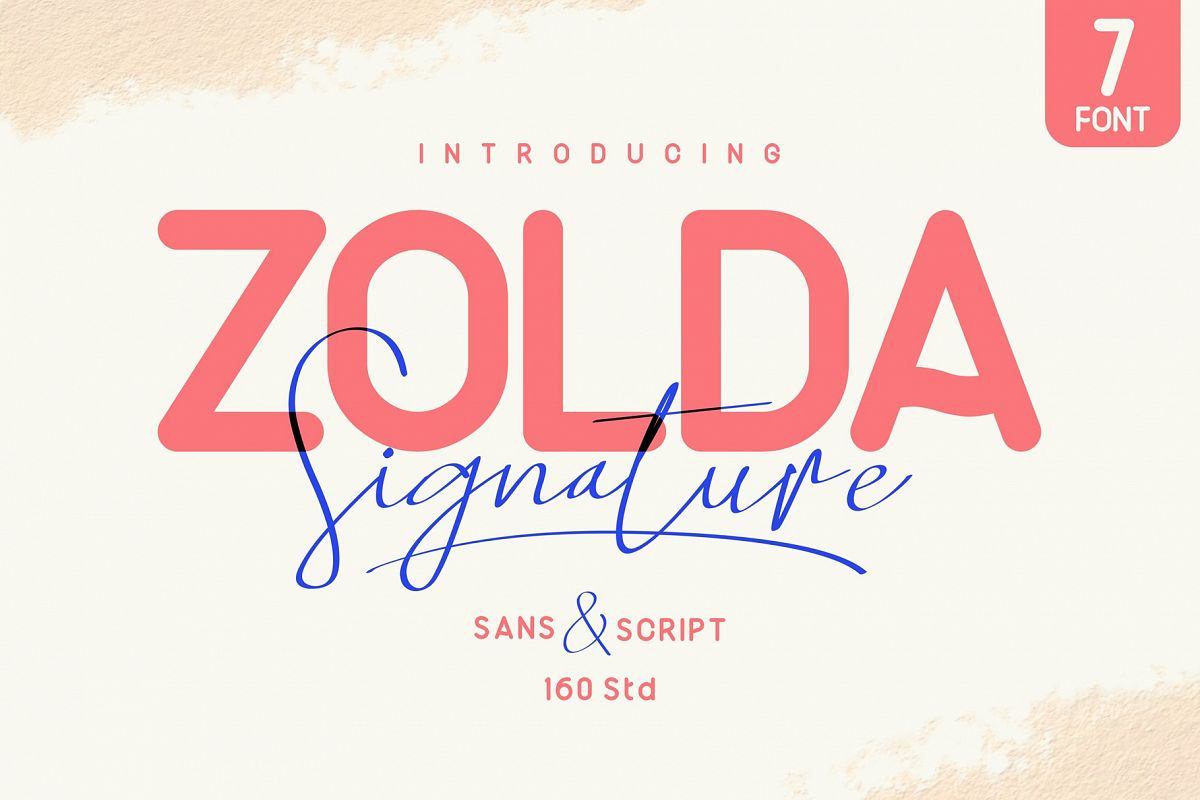
Zolda Signature Font Family | 7 FONTS
Introducing Zolda sans serif font coming in 3 styles Regular, Script, and Swash. Strong letters with ton of ligatures and style to choose to make unique only for you! This fonts is perfect for : Logo, headlines, quotes, Web, magazine covers, editorial design, print posters, signage, window shop design, etc.FEATURES
• 3 Styles and 2 weights
• Numerals & Punctuations
• Ton of Beautiful Ligatures & Alternates
• Multilanguage support